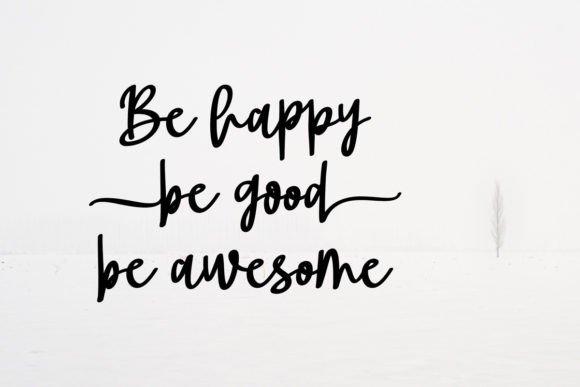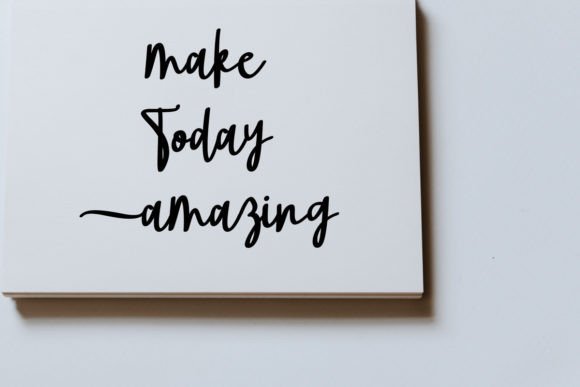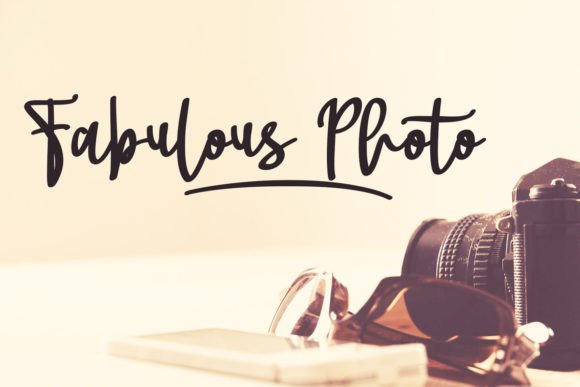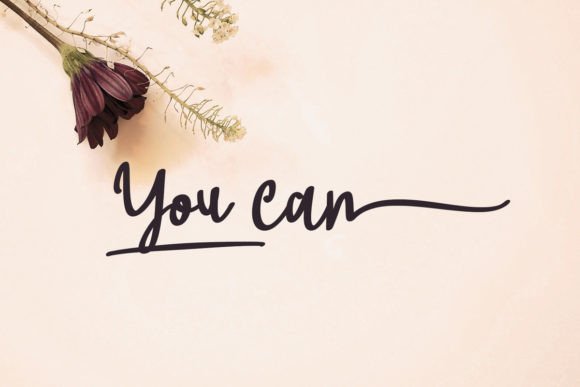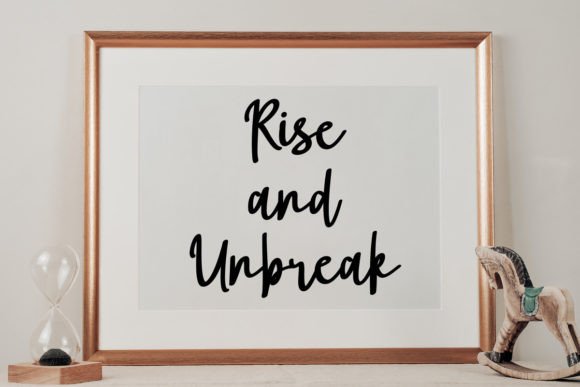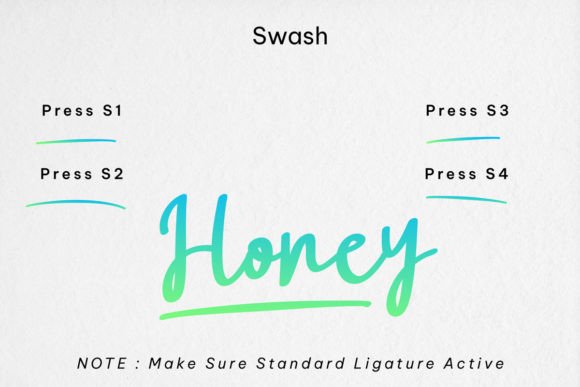
Introduction to Pioner Gio Font
Pioner Gio is a delicate, elegant, and flowing handwritten font.
It has beautiful and well-balanced characters and as a result, it matches a wide pool of designs This font is PUA encoded which means you can access all of the glyphs and swashes with ease.
Key Features of Pioner Gio Font
Why Choose Pioner Gio Font?